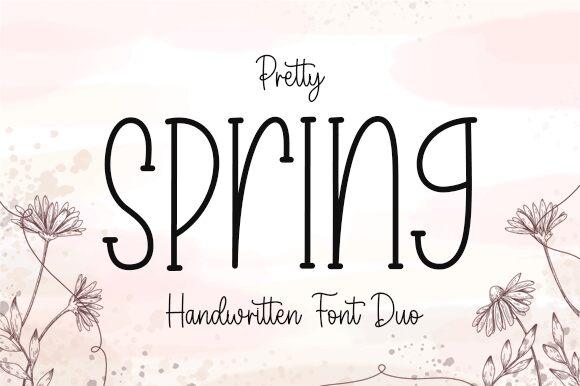
Pretty
Embrace the whimsical charm of 'Pretty,' a handwritten gem from Graphix Line Studio. With its semi-light weight and semi-condensed width, Pretty offers an air of casual elegance that effortlessly enhances any creative canvas.
The duo, 'Pretty Spring', brings together two fonts that marry grace with playfulness—perfect for invoking a sense of joy and sophistication in your projects. Whether you're crafting heartfelt invitations, eye-catching social media graphics, or personalized branding materials, Pretty's delightful presence is sure to captivate and enchant your audience.
Unleash your creativity with a font that's not just beautiful—it's Pretty.